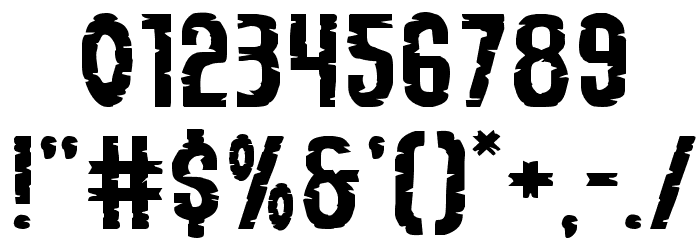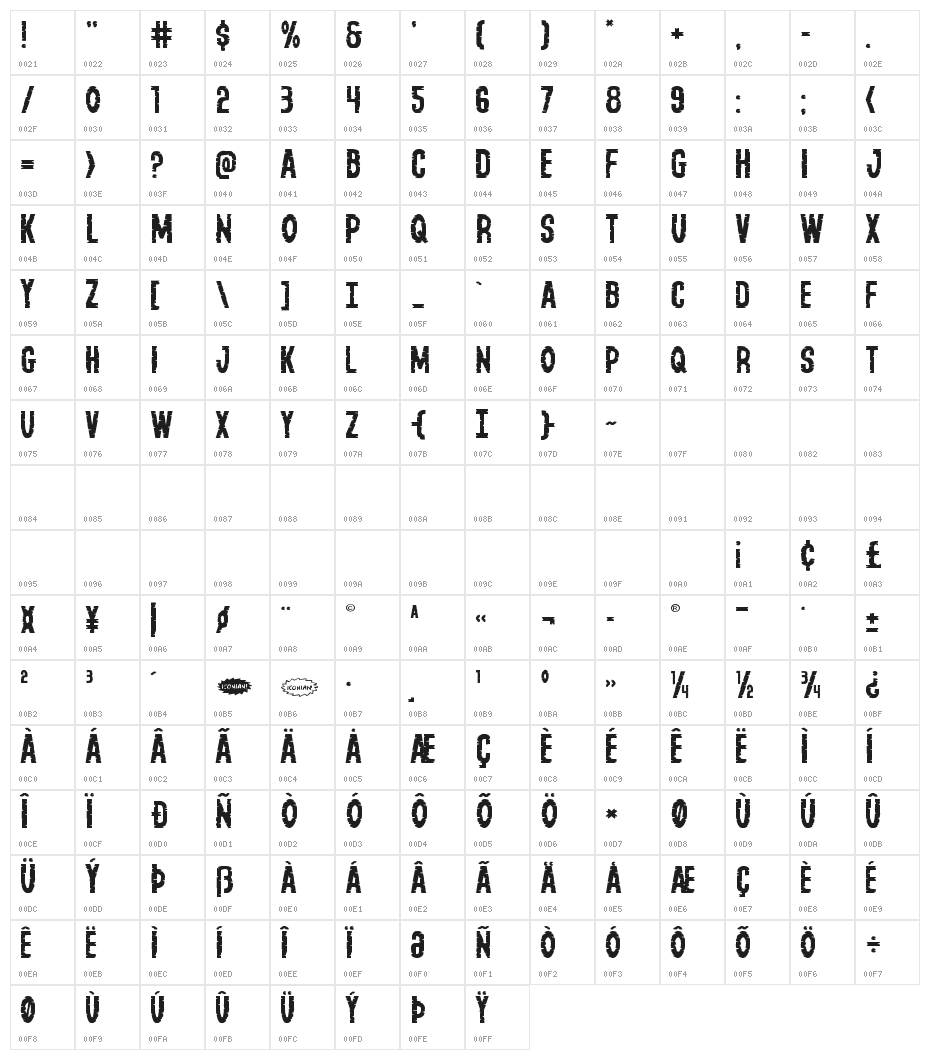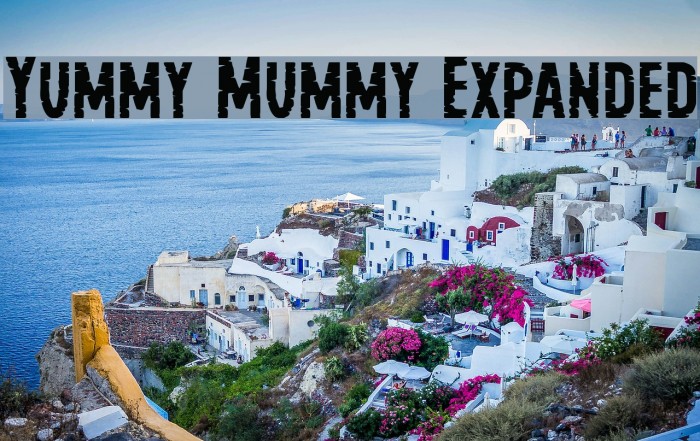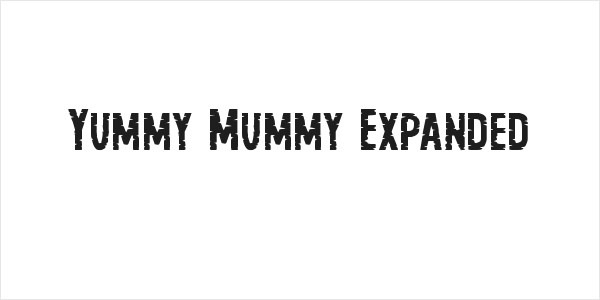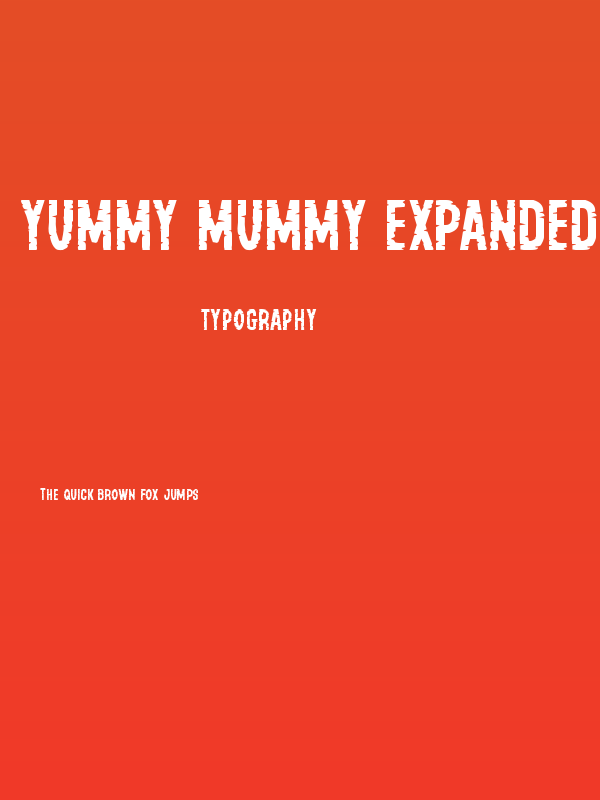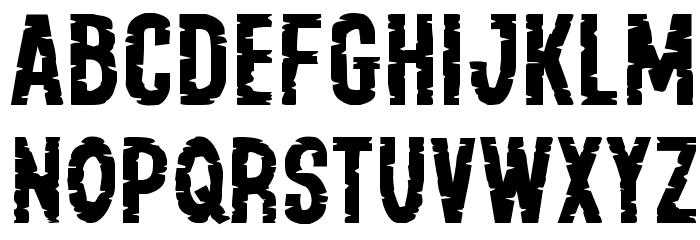
Yummy Mummy Expanded Font
Yummy Mummy Expanded Description
This font features a bold and rugged design with a distressed, grunge-like appearance. The characters are heavily stylized with irregular edges, giving them a worn and textured look. The uppercase letters are prominent and impactful, making them suitable for attention-grabbing headlines or titles. The numbers and special characters maintain the same distressed style, ensuring consistency across all elements. This font's unique aesthetic is ideal for projects that require a bold, edgy, and unconventional typeface.
| Proposed Projects | Ideal for posters, album covers, branding for edgy products, and any design requiring a bold statement. |